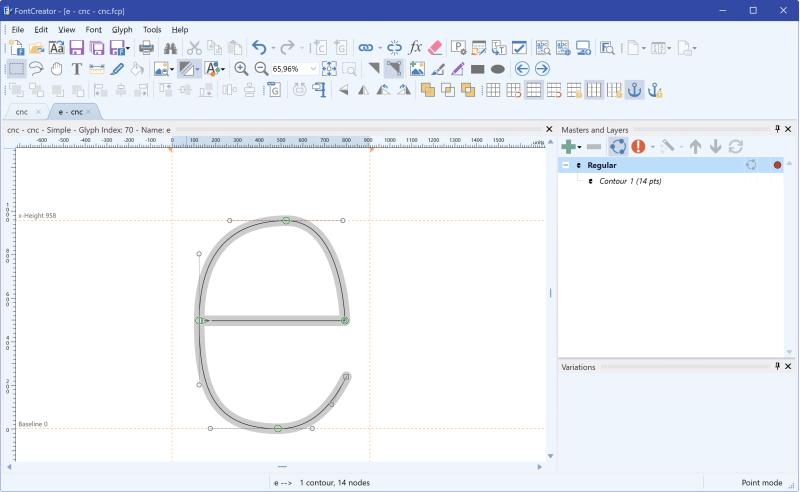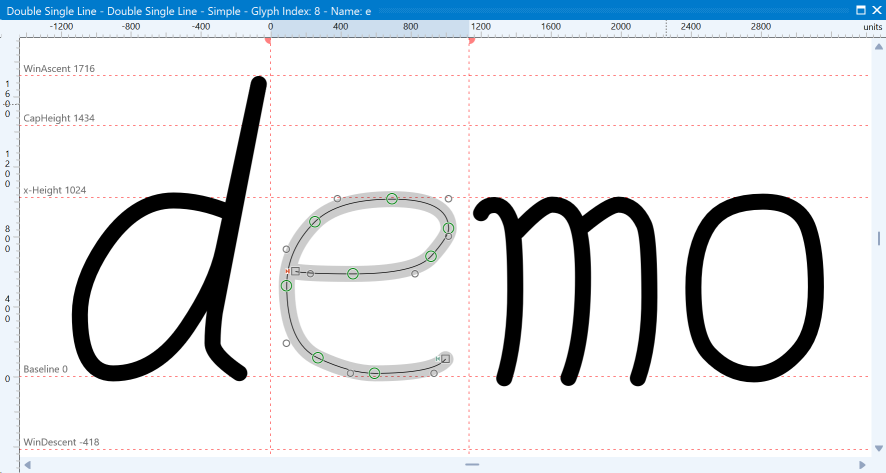
Single-Line Fonts for Engraving and Cutting
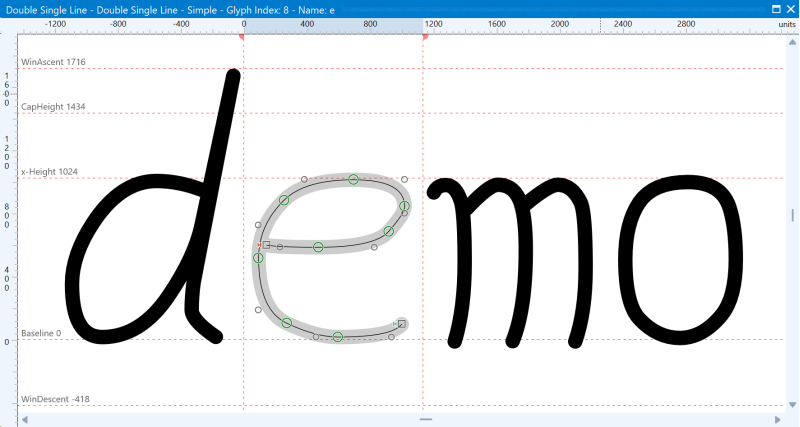
A capital A drawn as a single open centerline path in the Glyph Edit window — thin strokes, no fill — beside the Font Export Settings dialog showing Open Contours set to Single stroke.
A single-line font is one whose letters are drawn as centerlines — one thin path per stroke, with no thickness — so a CNC router, laser, vinyl cutter, or engraving tool can follow the line directly instead of tracing around a filled shape. Cutting and CNC programs such as Make The Cut, Sure Cuts a Lot, Rhino, Silhouette Studio, and Cricut Design Space can all drive designs from fonts, and a single-line font gives them the cleanest possible toolpath.
Here's the catch the format imposes: OpenType (and TrueType) fonts are fundamentally built from closed contours that enclose a filled area, so a true single-line OpenType font doesn't really exist. FontCreator works around this by letting you design and export open contours — paths whose start and end points are not joined — and by giving you two export modes that engraving software understands. This font editor is one of the few that makes the open-contour workflow practical end to end, on Windows and macOS alike.
Note: Single-line fonts are meant for engraving and CNC, not for normal text display. In ordinary apps they'll look unfilled, broken, or invisible — that's expected.
What an open contour is (and why engraving needs centerlines)
A normal glyph outline is a closed contour: the path returns to where it started and encloses a region the rasterizer fills with ink. When a cutting machine is handed a closed letter, it cuts around the shape — two edges per stroke — leaving a hollow outline of the letter, not a single engraved line.
An open contour is a path that simply stops at its last point. There's no enclosed area, so there's nothing to fill — what you see is the line itself. Run a tool along that line and you get one pass down the centerline of each stroke, which is exactly what engraving, scoring, single-line cutting, and pen-plotting want.
So the design rule for a single-line font is: draw each stroke as one open path down the middle of where the stroke should go, and leave it open. Not every glyph has to be open — a glyph like O or o is naturally a single closed loop and can stay closed — but the strokes you want engraved as lines must be open contours.
Turn on open-contour export (Single or Double Stroke)
Open contours only behave as single-line output if you tell FontCreator to export them as strokes. That switch lives in the export settings.
- Open File → Export and choose Desktop Font As (ttf/otf)….
- In the Font Export Settings dialog (Desktop tab), find the Open Contours option. It appears only when your font contains open contours, and the same option is on the Web tab too.
- Pick the export mode. The choices are Close, Exclude (recommended), Single stroke, and Double stroke — for single-line output you want one of the stroke modes:
- Single stroke — the most efficient: each open path is exported once, as a single line. Best for software that supports single-line/stick fonts. - Double stroke — reverses each path so it's traced out and back; most engraving machines follow this reliably. Choose it if Single stroke confuses your tool. - (Close joins each open path into a filled shape, and Exclude drops open contours from the export — neither is what you want for engraving.)
Why Exclude is labeled "recommended": for ordinary text fonts, it's the safest default because it avoids exporting open contours (which font validators flag as errors). For engraving and cutting fonts, however, open contours are the point of the workflow, so choose Single Stroke or Double Stroke and test which one your machine/software expects.
- Export, then open the result in your engraving/cutting software and run a short test cut on scrap before committing.
Open contours imply the TrueType outline format — the CFF (PostScript) format can't store them — so keep the export set to TrueType. And remember that even a correctly exported single-line font still renders oddly in normal text apps; that's the format's limitation, not a mistake on your end. Test both stroke modes with your specific machine and software; which one wins depends on the toolchain, not on FontCreator.
Tip: Once open contours are present, FontCreator shows contours as strokes rather than filled shapes in the Glyph Edit window, which makes designing single-line glyphs much easier to read.
The Font Export Settings dialog with the Open Contours dropdown expanded, showing Close, Exclude, Single stroke and Double stroke.
Draw a single-line glyph step by step
- Create a new font. Start a fresh project in FontCreator.
How do I turn an existing closed letter into a single line? Open the glyph, select the closed contour, and break it so its start and end points separate into an open path; then redraw it as a single centerline if needed.